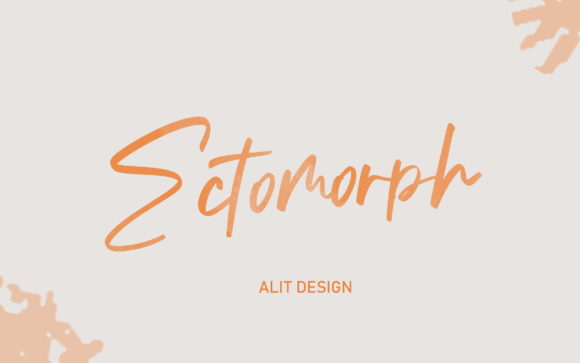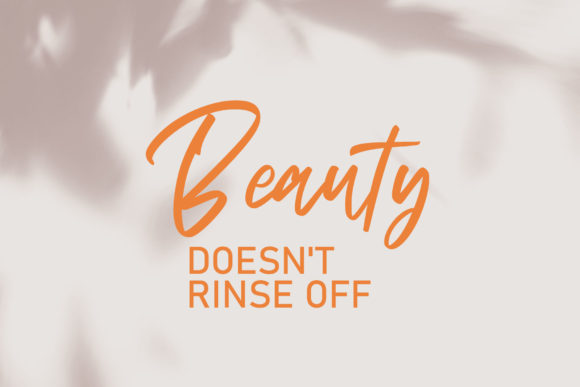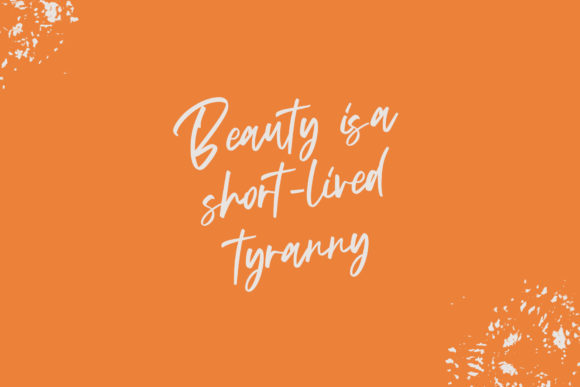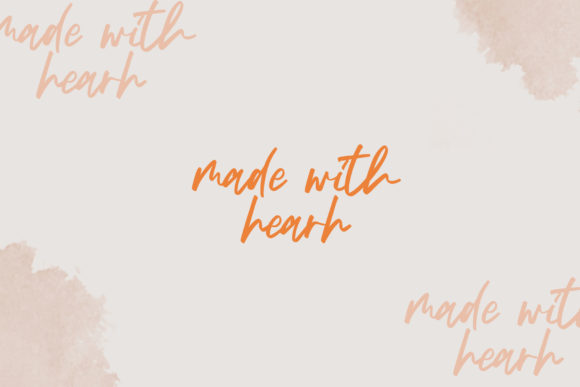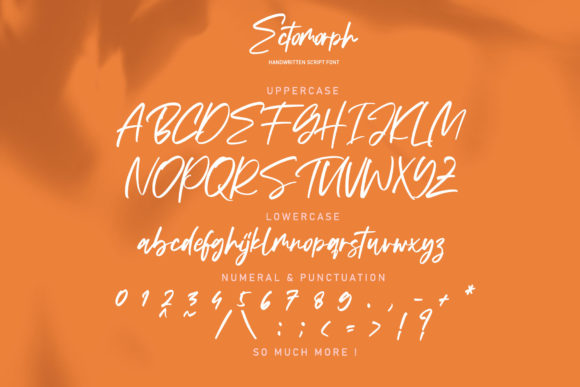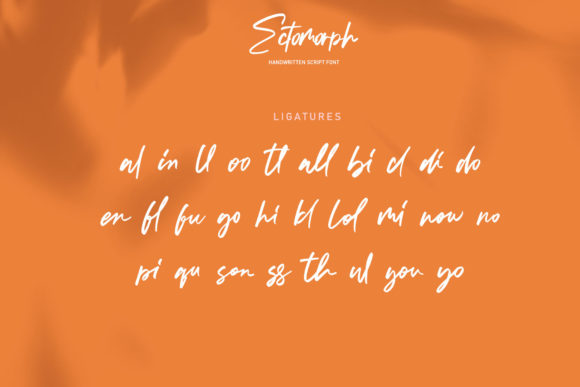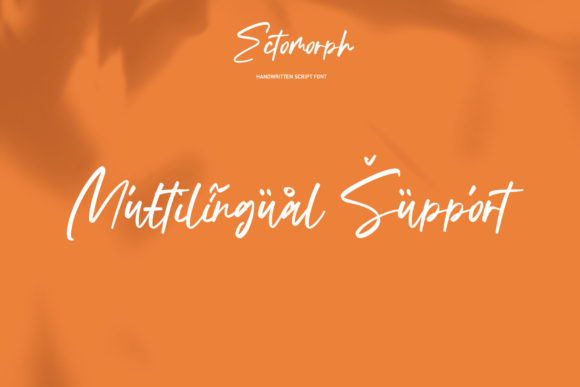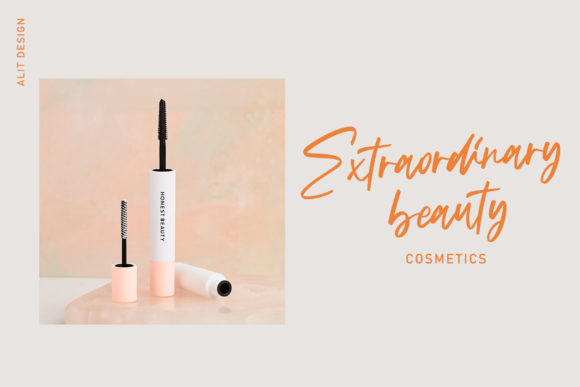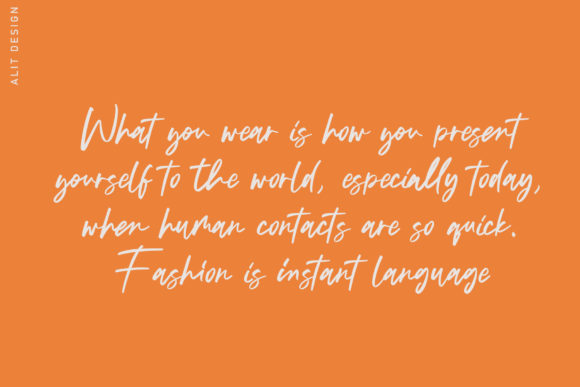
Ectomorph Font
About Ectomorph Font
Ectomorph is an exquisite handwritten font, masterfully designed to become a true favorite. It maintains its classy calligraphic influences while feeling contemporary and fresh. Fall in love with it and bring your projects to the highest levels!